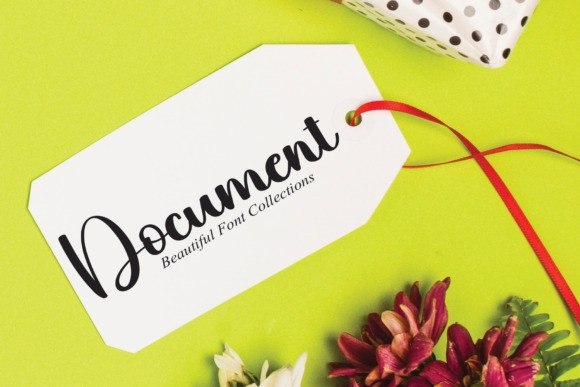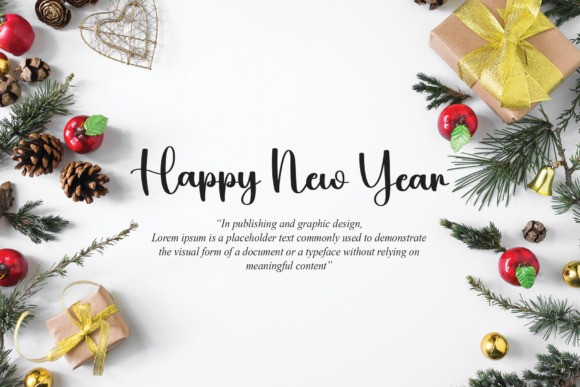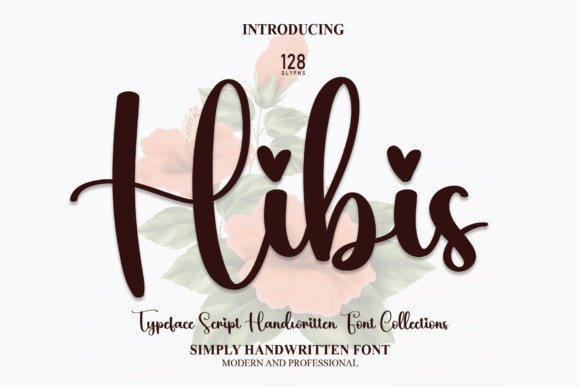
Hibis Font
Hibis Font is a font with hearts for dots—you can find them on characters like “i” and “j”. With this font, your messages will become really super cute. It is perfect for posters, greeting cards, t-shirts, branding materials, quotes, and any other amazing projects you are working on.